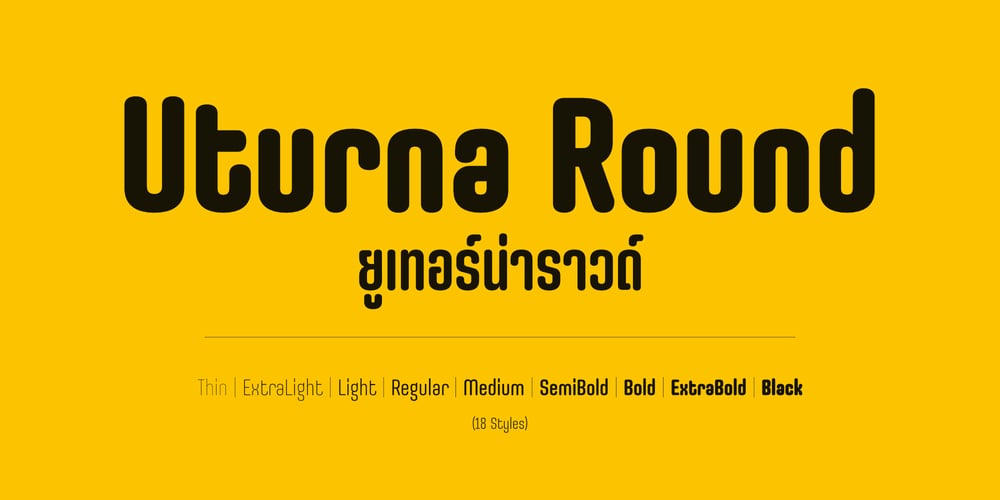
Uturna Round Font Family was designed by Anupap Jaichumnan and published by Jipatype. Uturna Round contains 18 styles and family package options. Uturna Rounded is a softened, modern evolution of the original Uturna typeface, retaining the distinctive “U” shape structure but with smooth, rounded edges for a more approachable and friendly aesthetic.